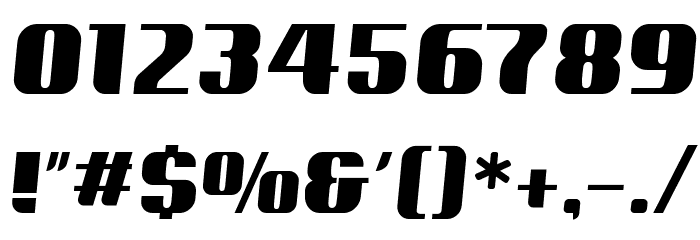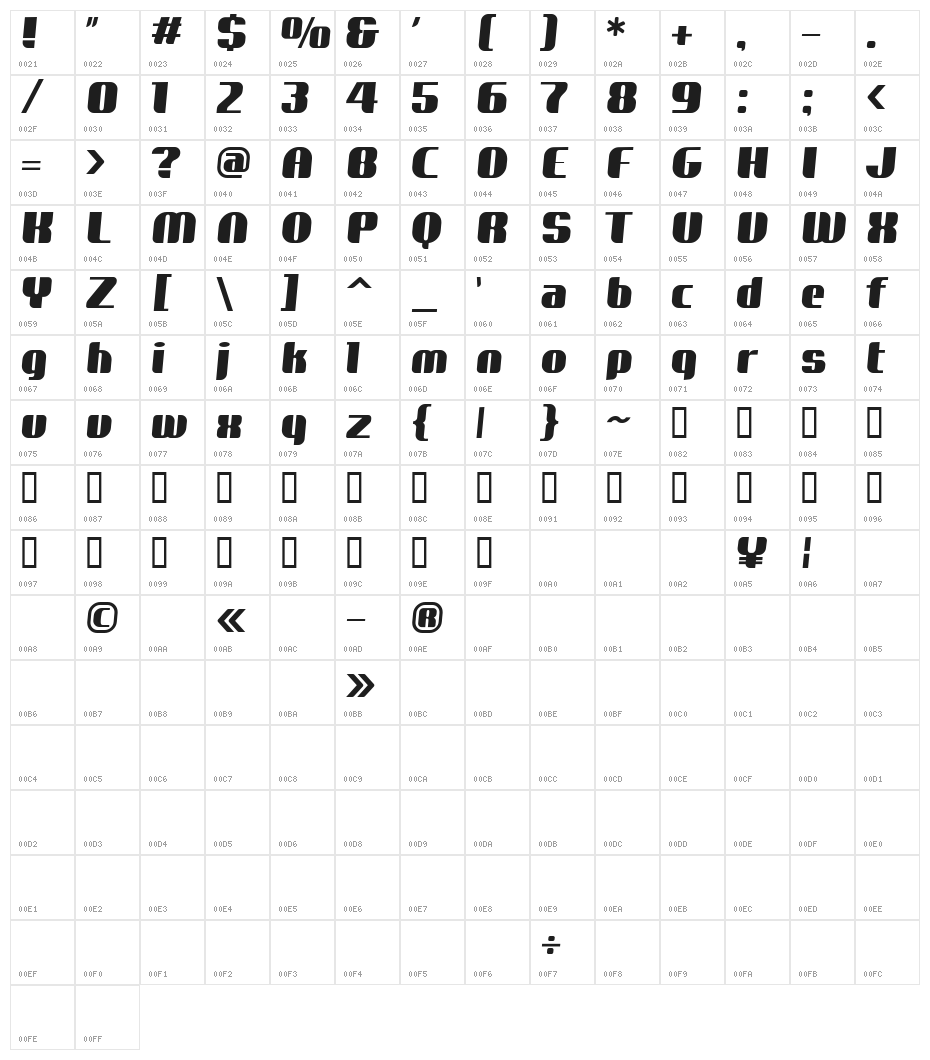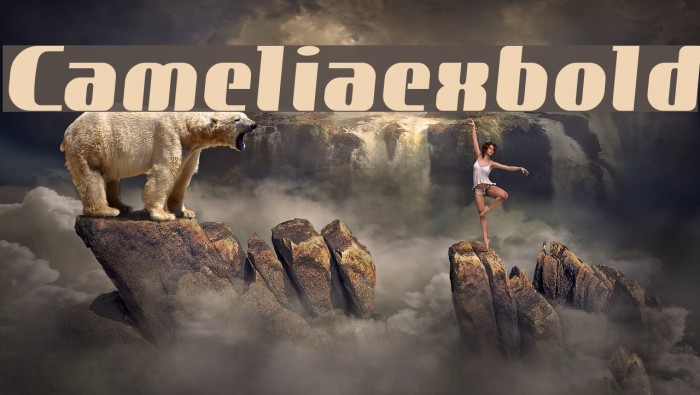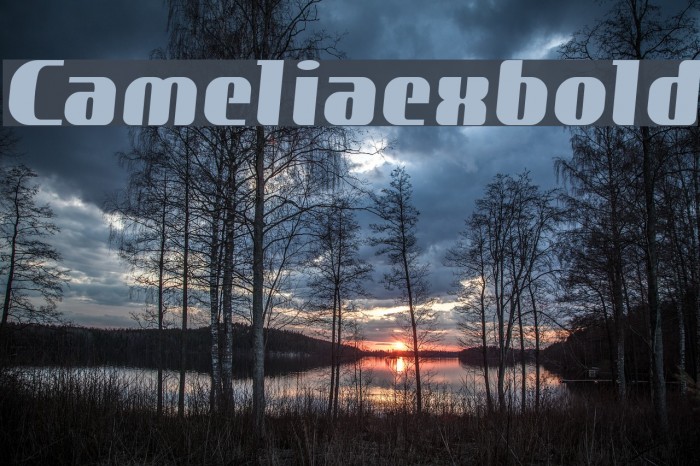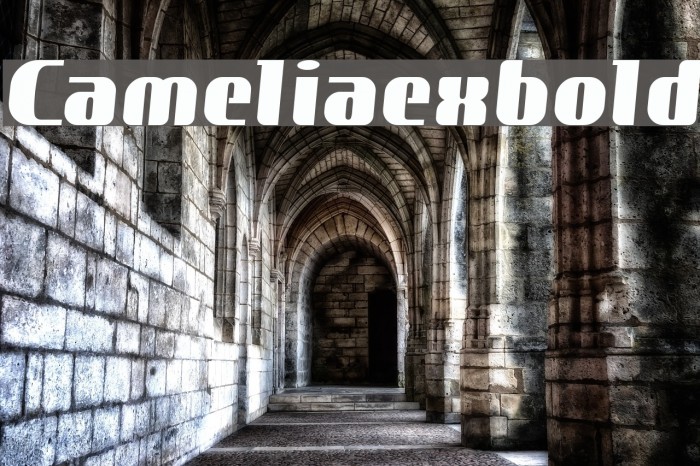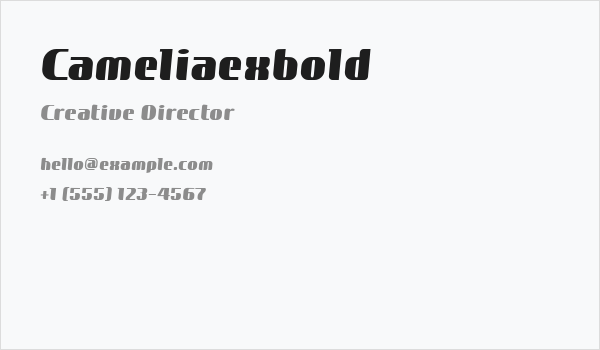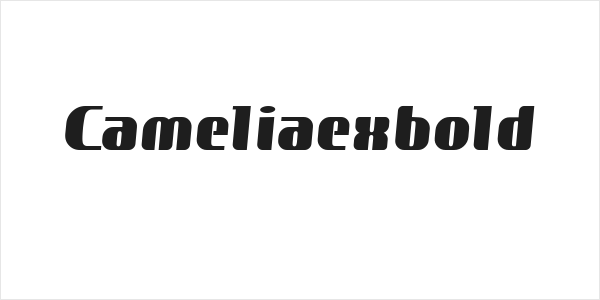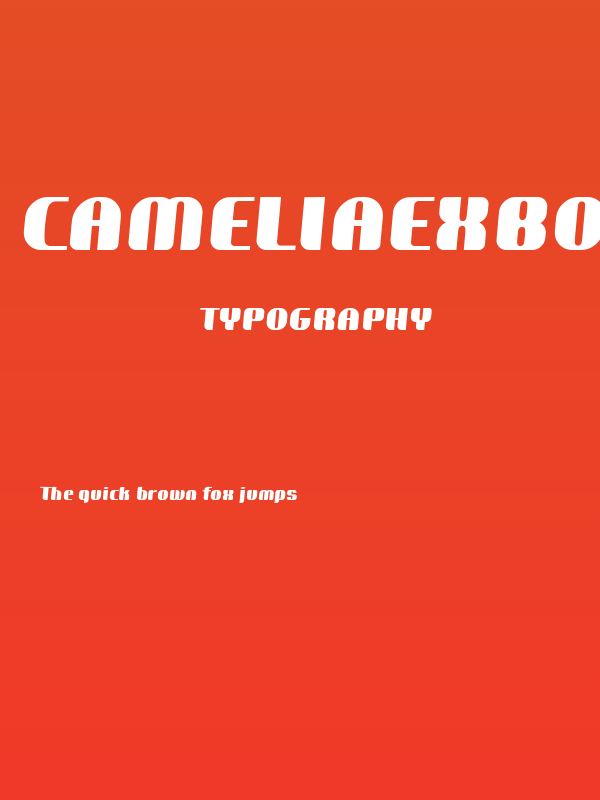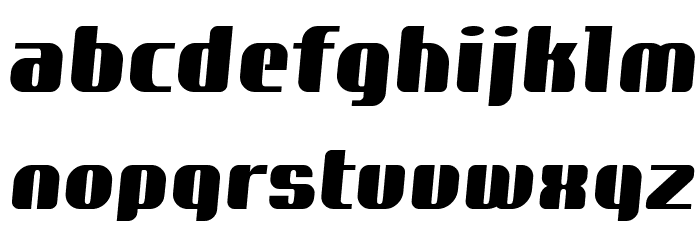
Cameliaexbold Font
Cameliaexbold Description
This font features a bold and rounded style with a modern flair. The characters are wide and have a strong presence, making them ideal for attention-grabbing headlines. The uppercase letters are particularly striking with their thick strokes and smooth curves, while the lowercase letters maintain a consistent weight and style. The numerals are equally bold, ensuring readability and impact. Special characters are designed to match the overall aesthetic, providing a cohesive look across all text elements.